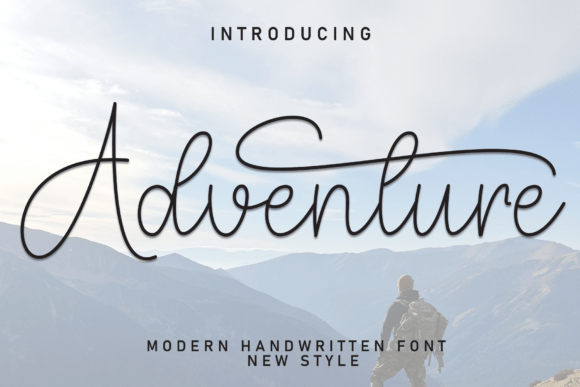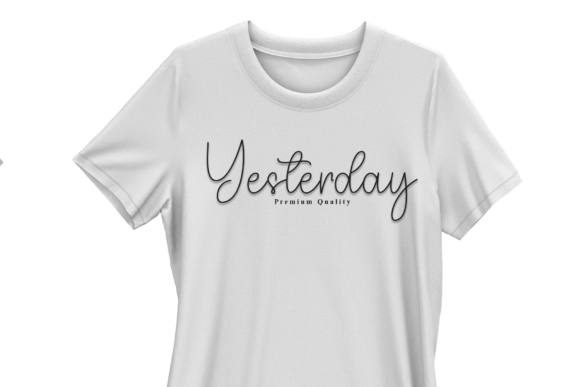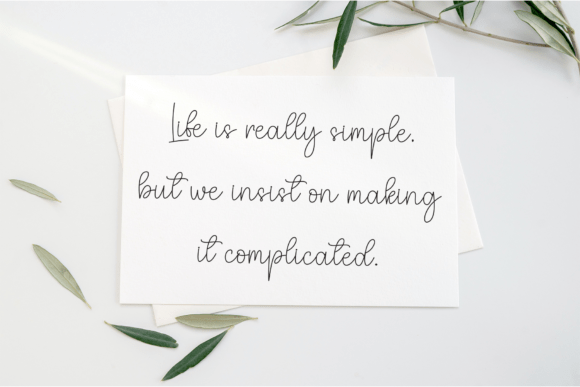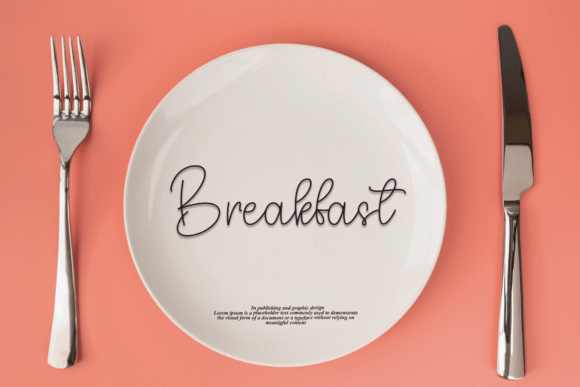
Adventure Font: A Flowing Handwritten Script for DIY & Branding
About the Adventure Font
Elevate your designs with Adventure Font, a font that combines sophistication with readability. Adventure is a stylish handwritten script font that radiates elegance and fluidity. Its smooth, flowing strokes create a natural and sophisticated feel, perfect for branding, invitations, and creative projects. With a graceful balance of charm and modernity, this typeface adds a personal, artistic touch to any design.
Adventure Font excels in applications requiring a touch of refined elegance, such as logos, wedding invitations, or short-form editorial pieces. Its graceful curves work beautifully for headlines and short text blocks on packaging or posters. However, its cursive nature makes it unsuitable for extended body copy or UI elements where readability is paramount. Avoid using it for dense paragraphs or small sizes.
For optimal visual harmony, pair Adventure Font with a clean sans-serif like Lato or Open Sans for a contemporary feel, or a classic serif such as Garamond or Playfair Display for a more traditional approach. A simple geometric sans-serif could also provide a strong contrast and enhance the script’s fluidity.
The overall personality of Adventure Font is sophisticated yet approachable; elegant but not overly formal. It projects a sense of charm and subtle luxury, making it ideal for brands conveying quality, craftsmanship, or a personalized touch.
Adventure Font Usage Examples
Adventure Font Example